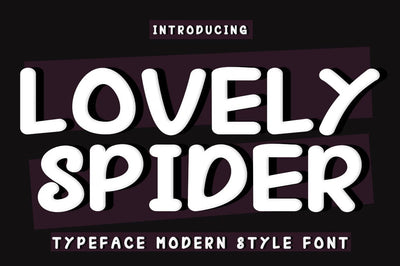
Lovely Spider Font
Lovely Spider Font is an elegant and flowing handwritten font. It is PUA coded which means you can access all glyphs and swashes easily! It features varied baselines, smooth lines, beautiful glyphs, and stunning alternatives. It maintains a classy calligraphy influence while feeling contemporary and fresh. Fall in love with this font and take your projects to the highest level!